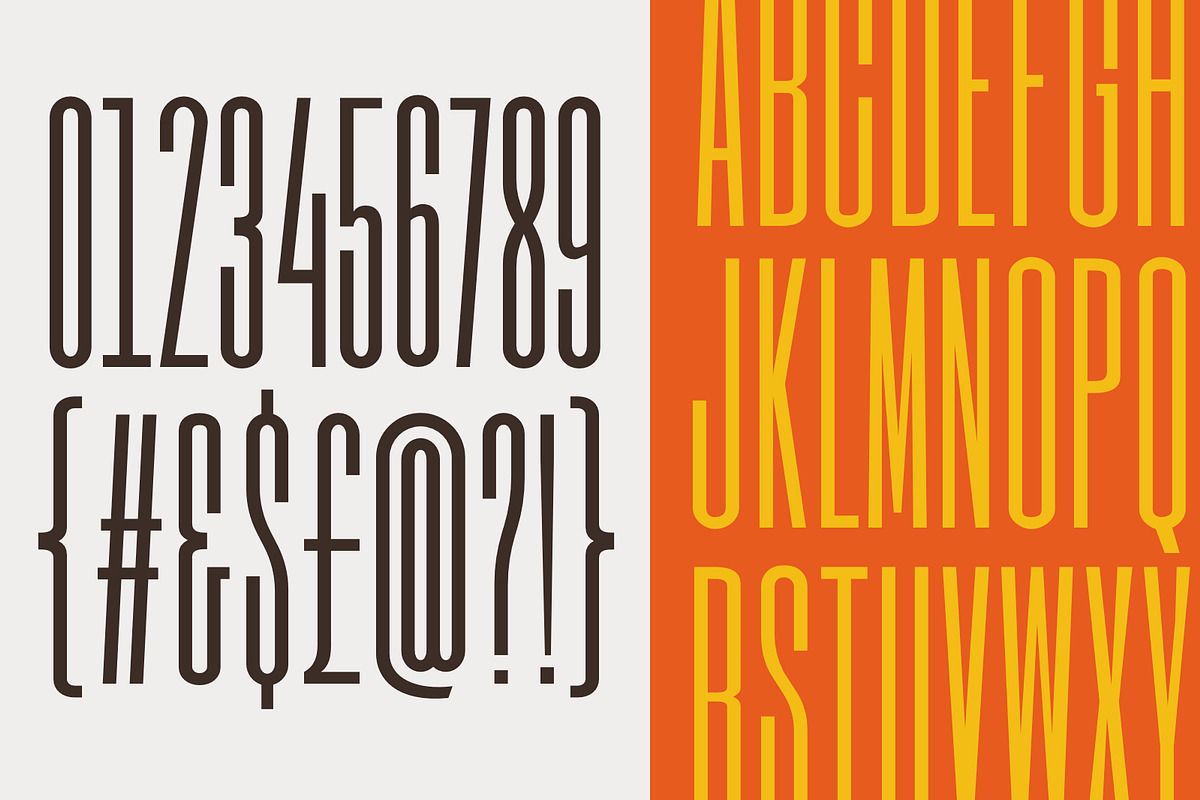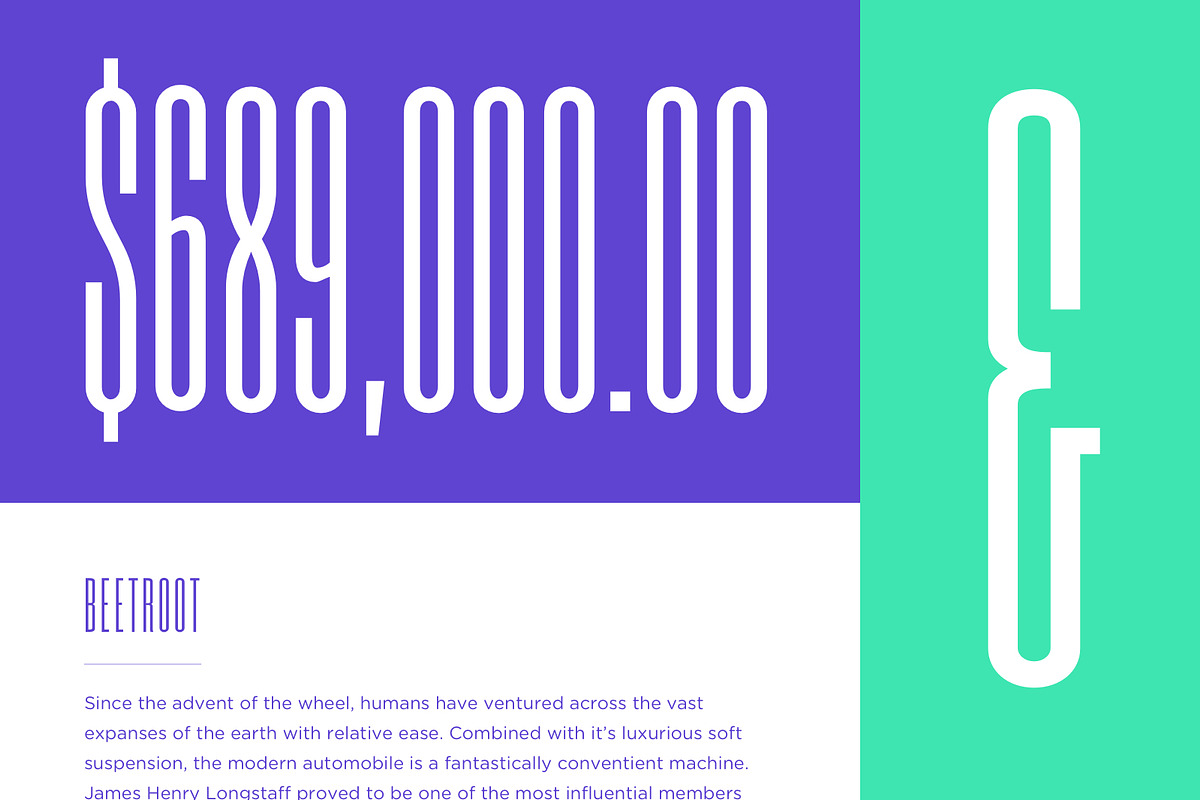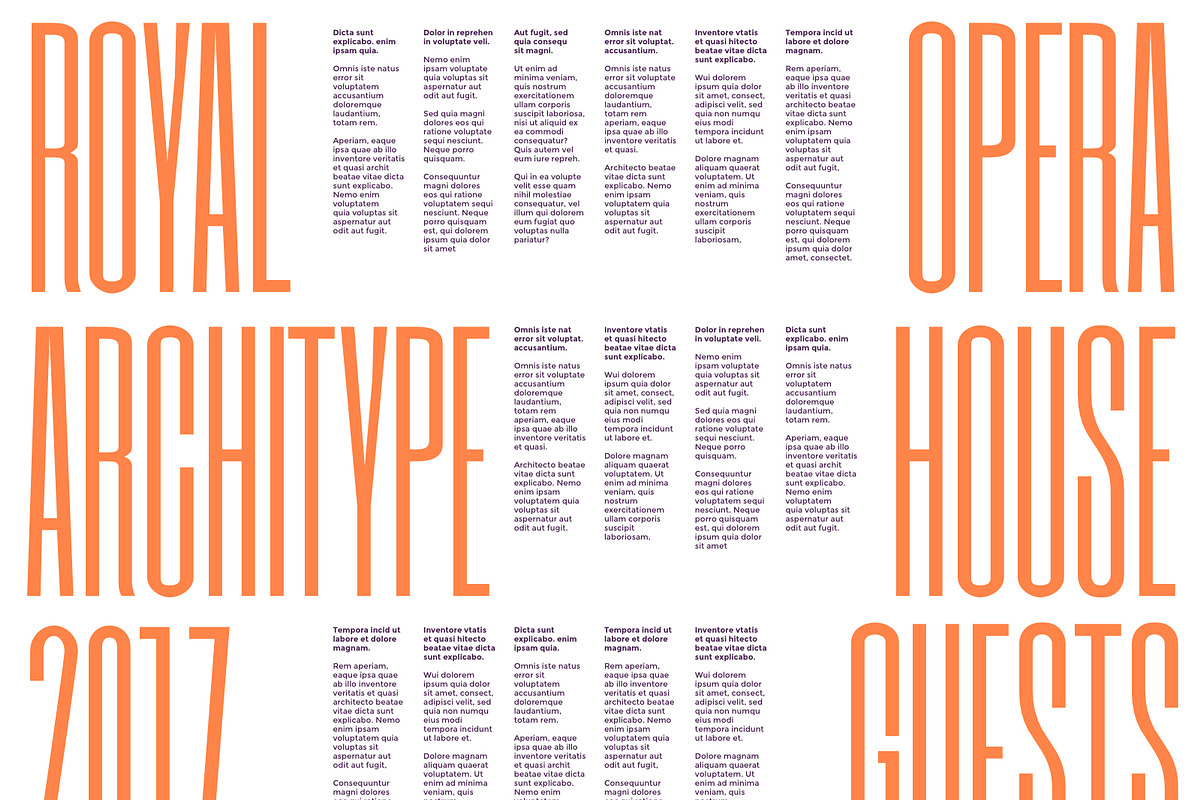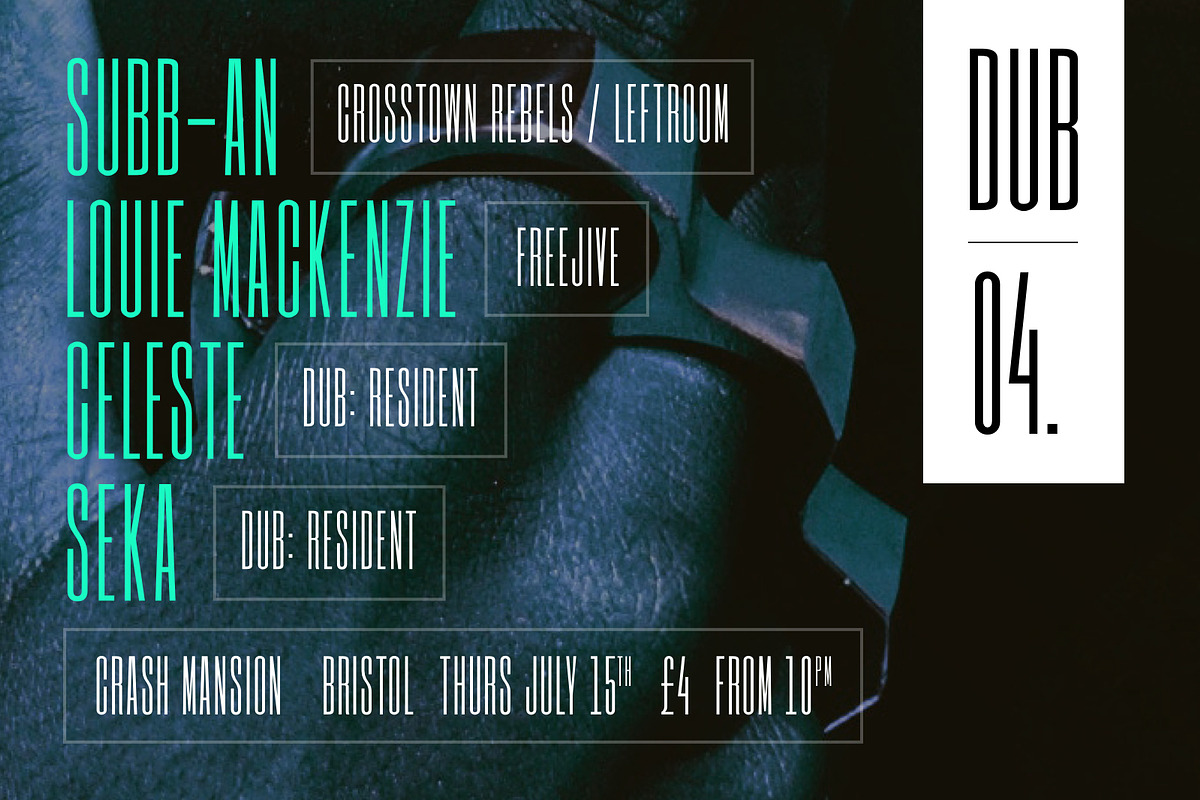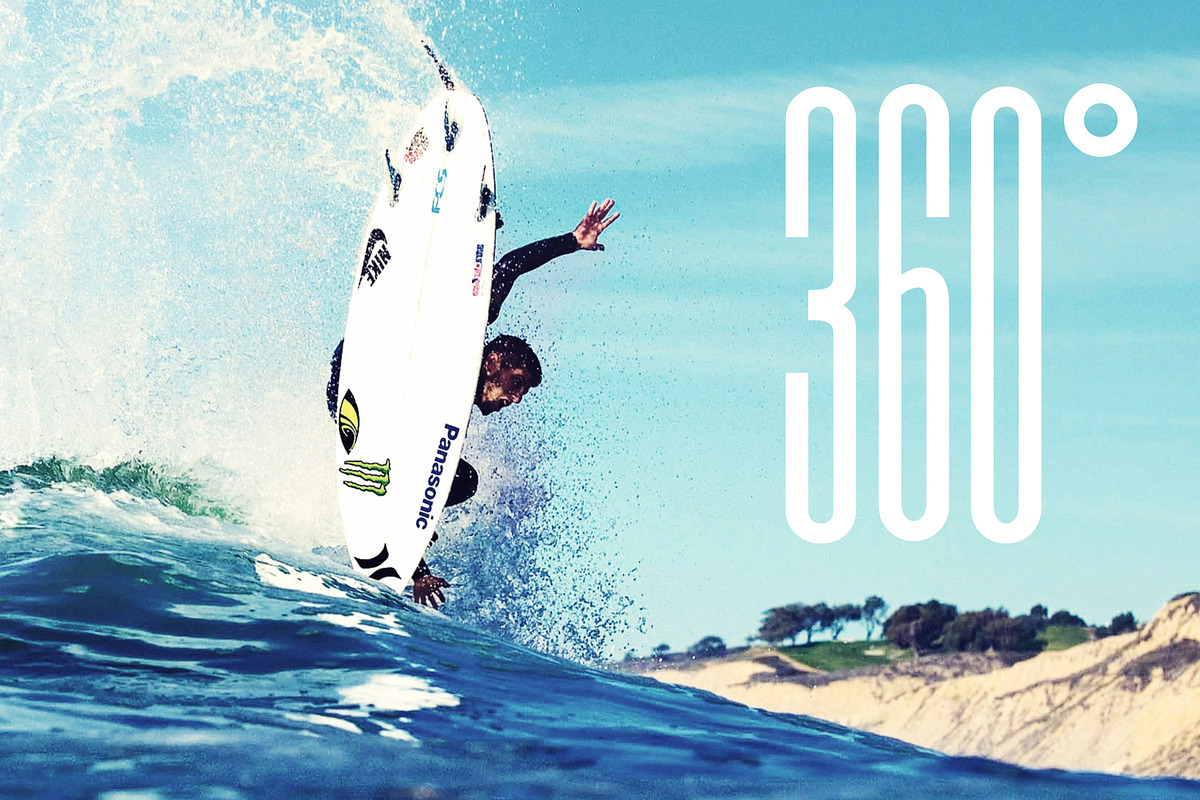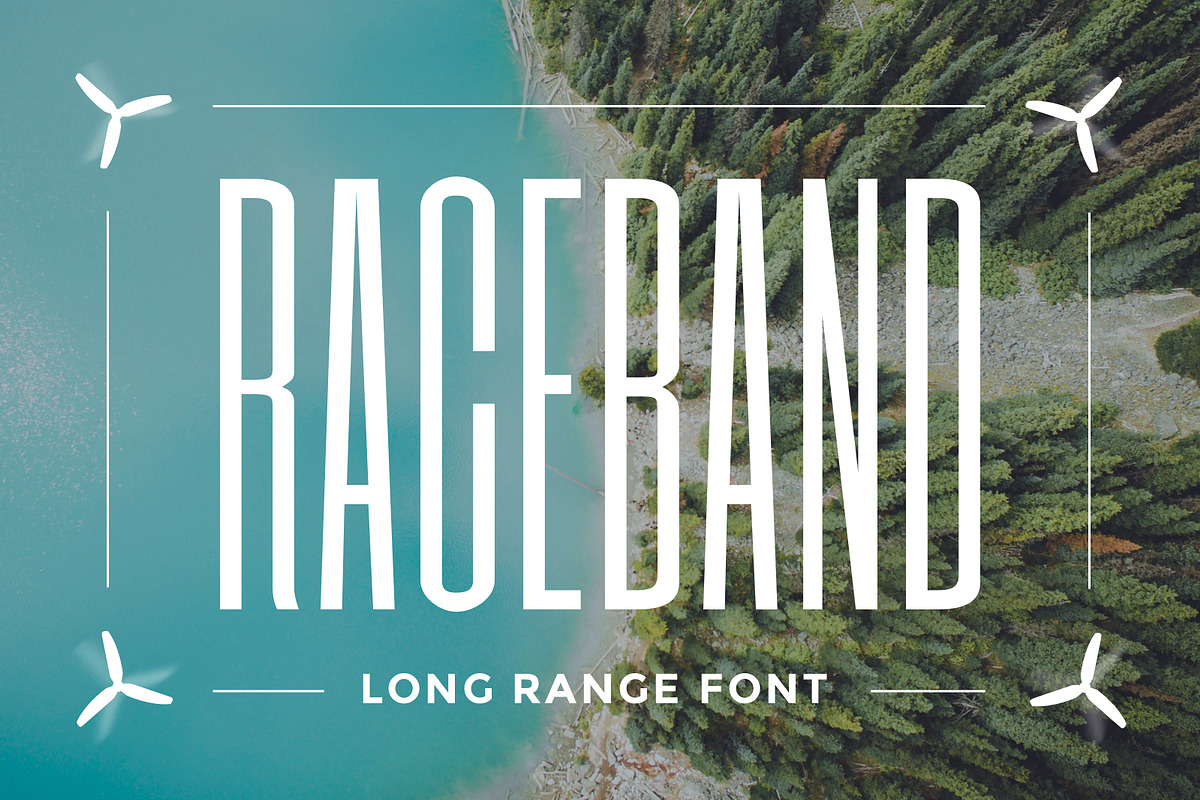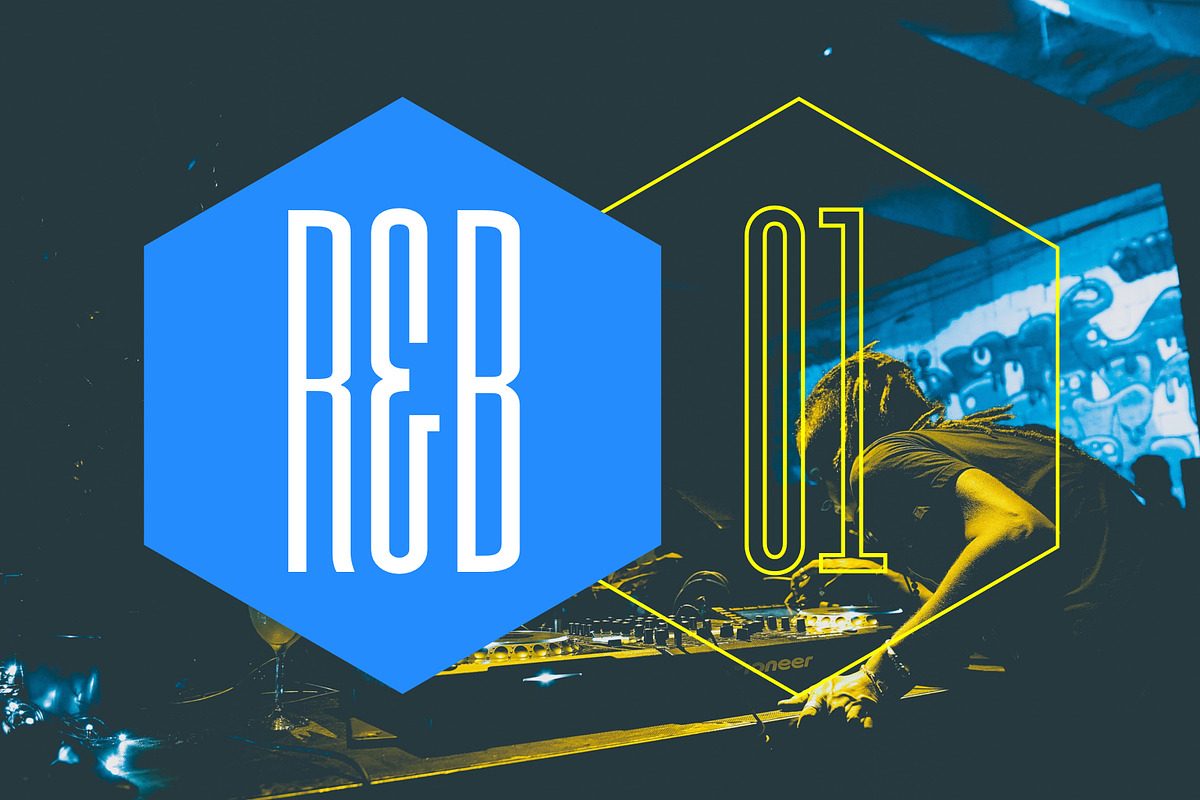
Raceband Ultra Condensed Typeface
Introducing Raceband, A lightweight ultra condensed font designed for extra long range. With Raceband you can achieve the maximum potential out of your headlines and messaging.
Ideal for use where space is tight and you need to make a big impression. Excellent for use over photography/video content.
Ramp up your type sizes and allow your content to be king.